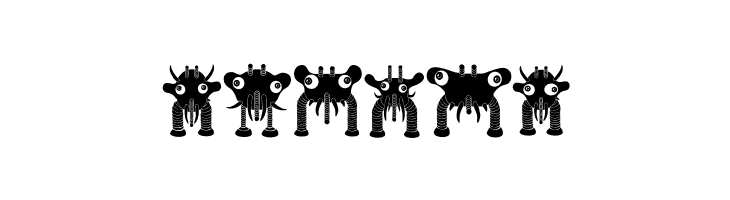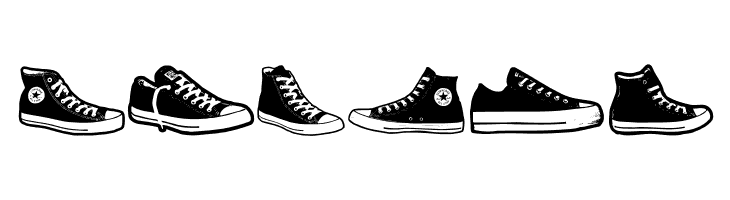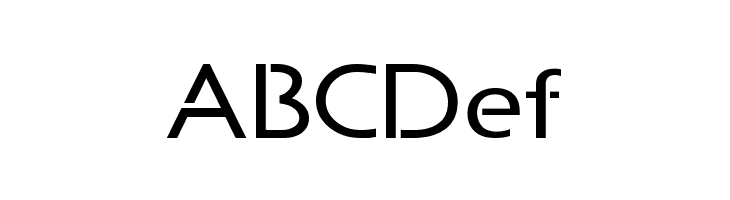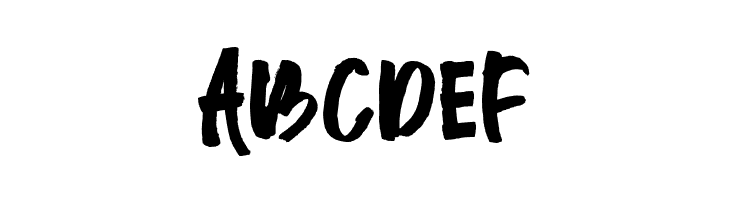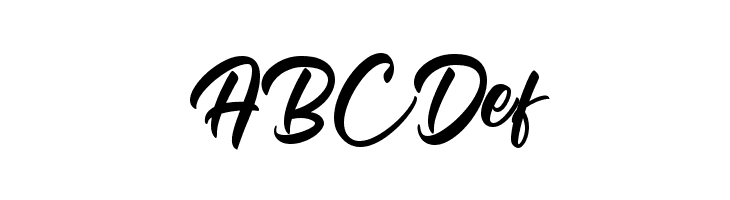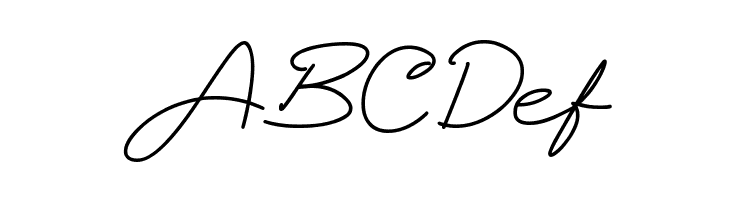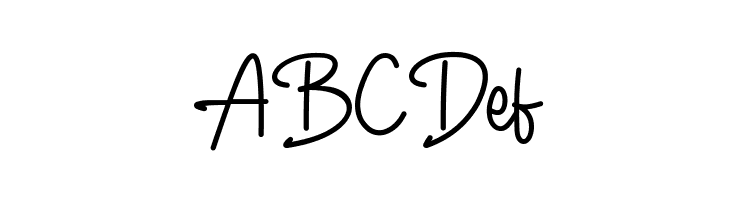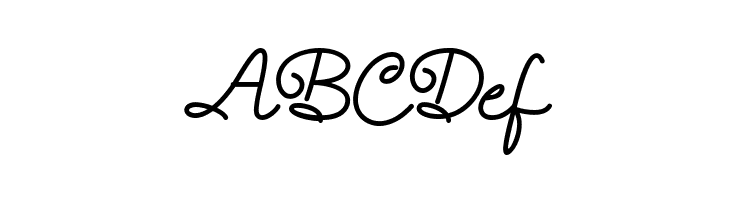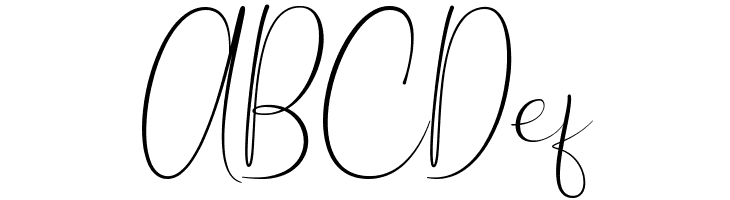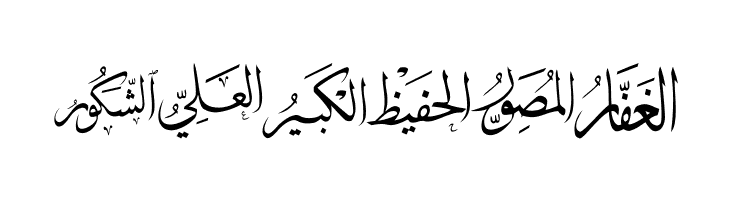
• All Rejects
A rough, hand-drawn font with a playful and informal style.
• All star
A bold slab serif font with strong, geometric characters and block-like serifs.
• All Star BV
A bold, geometric font with strong, uniform strokes and a commanding presence.
• All Star Regular
Hand-drawn sneaker illustrations form each character.
• All That Jazz
• All The Box Demo
A bold, playful font with boxed characters and a hand-cut appearance.
• All things CAT!
• all used up
A distressed, vintage-style font with a bold, weathered appearance.
• All Yoko
A bold, brush-style font with dynamic, flowing strokes and artistic flair.
• All your font are belong to us
• All-Purpose Signs JL
A bold, clear font ideal for signage and public notices.
• AllabamaPersonalUse
An elegant, whimsical script font with flowing, interconnected strokes.
• Allagia Demo
An elegant, flowing script font with a modern, handwritten style.
• allah names 3
A traditional Arabic script with elegant, flowing calligraphic strokes.
• allah names 4
A classic and elegant Arabic script with intricate detailing and dynamic contrast.
• allah names 99
An elegant and traditional Arabic script with intricate design and dynamic contrast.
• allah names color
An elegant Arabic script with flowing, cursive strokes and artistic flair.
• Allamanda
A graceful script font with decorative swashes and flowing cursive style.
• Allan Regular
A dynamic, slanted script font with smooth, flowing strokes.
• Allan Rooster
A bold, graffiti-inspired font with dynamic, hand-drawn characters.
• Allanis
A playful, casual script font with flowing, connected letters.
• Allcan DEMO
A modern, geometric font with clean lines and a minimalist style.